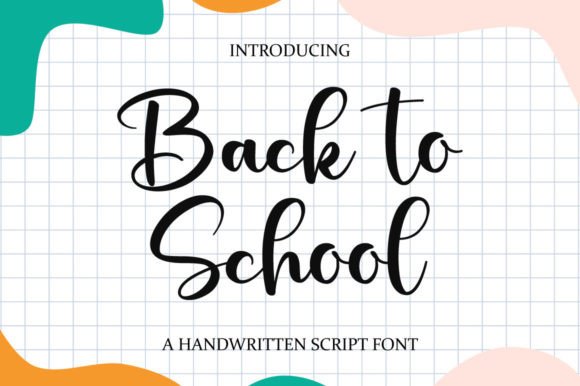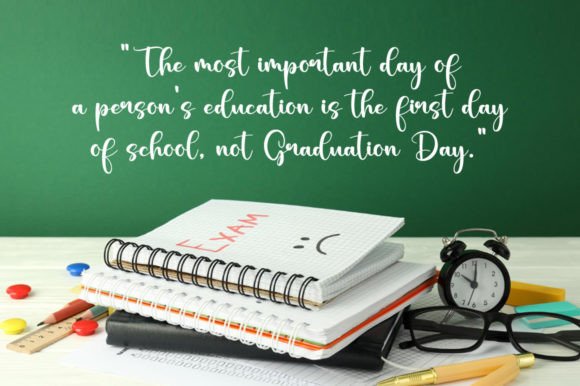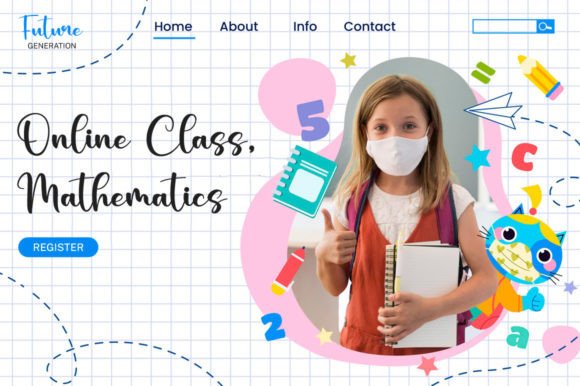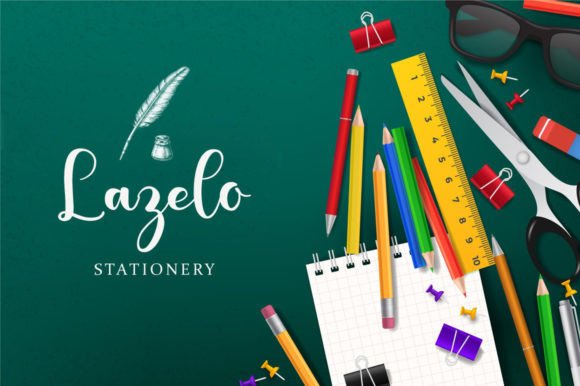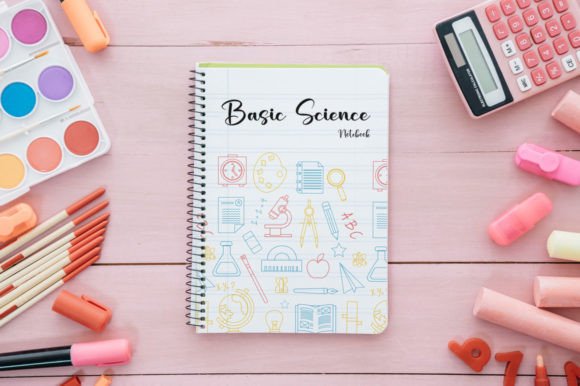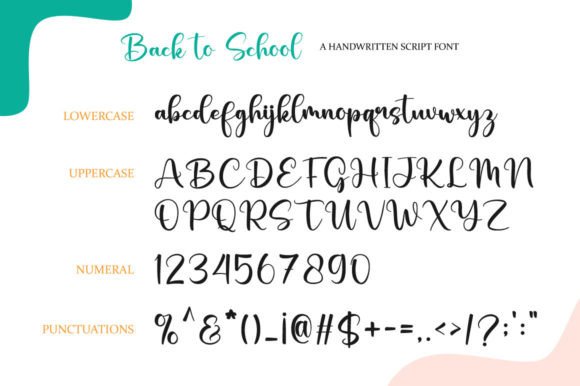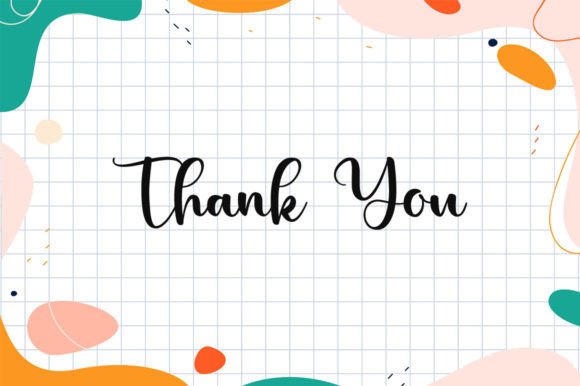
Back to School Font
Back to School Font : A Timeless Handwritten Font for Elegant Designs
Back to School is a charming blend of timeless elegance and handwritten beauty. This versatile font is perfect for creating eye-catching logos, branding materials, and memorable quotes.
Key Features of Back to School Font
• Timeless Elegance: Combines classic appeal with handwritten charm
• Graceful Characters: Adds sophistication to your creative projects
• Versatile Application: Suitable for logos, branding, quotes, and more
Perfect for Multiple Design Projects
Back to School’s adaptability makes it an excellent choice for:
Enhancing Brand Identity
When used in branding and logos, Back to School adds a unique sense of character and sophistication. Its distinctive style helps your brand stand out and effectively convey its values and identity to the target audience.
Elevating Quotes and Phrases
For quotes and memorable phrases, Back to School’s graceful characters enhance the impact of your words. Whether you’re creating inspirational content or designing marketing materials, this font makes your message more captivating and memorable.
Versatility in Design
One of Back to School’s most remarkable qualities is its adaptability. It can effortlessly transition from a formal and polished tone to a more relaxed and friendly one, making it suitable for a wide range of creative applications.
Back to School is more than just a font; it’s a design asset that masterfully combines timeless elegance with handwritten beauty. Its unique blend of graceful characters and classic charm makes it an indispensable tool for anyone seeking to add a touch of sophistication and authenticity to their visual communication. By incorporating Back to School into your designs, you can create visually appealing and memorable content that engages your audience. Whether you’re a professional designer or someone looking to add elegance to personal projects, Back to School offers the perfect blend of timeless style and handwritten charm. Consider pairing Back to School with clean sans-serif fonts for contrast or complementing it with other script fonts for a dynamic typographic palette. This versatility allows you to create designs that are both elegant and harmonious across various mediums and industries. Embrace the timeless elegance of Back to School today and watch your designs come alive with grace and enduring appeal!